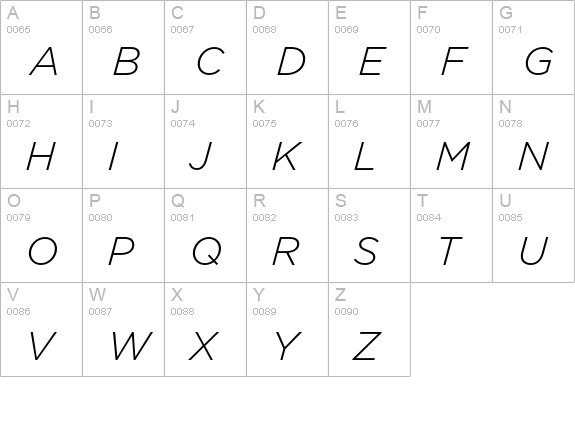
Gotham-LightItalic is a sleek and elegant font that exudes sophistication and modernity. Its stylish slanted design adds a touch of flair to any project, making it perfect for both professional and creative purposes. The delicate curves and clean lines of Gotham-LightItalic create a sense of refinement and class that is sure to captivate any reader. This exquisite font is not only visually appealing, but also highly versatile, suitable for a wide range of design applications. Whether you are designing a logo, creating a brochure, or crafting a website, Gotham-LightItalic will elevate your project to the next level. And the best part? Gotham-LightItalic is completely free to download at FontsMarket.com. Yes, that's right - you can access this premium font at no cost, making it an invaluable addition to your font collection. Don't miss out on this opportunity to enhance your designs with the exquisite Gotham-LightItalic font - download it today and let your creativity shine!